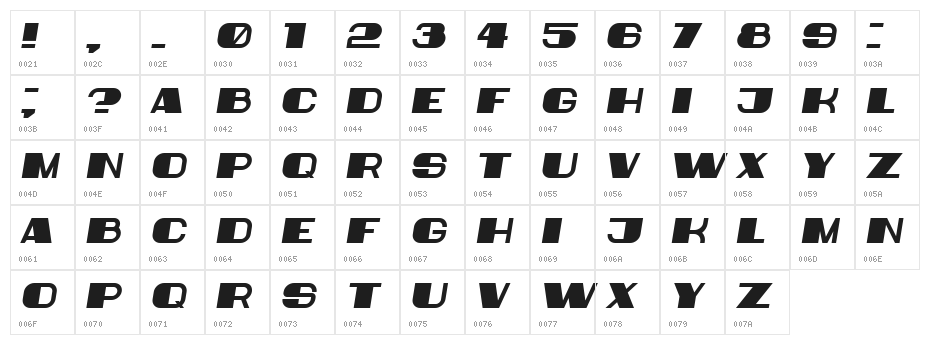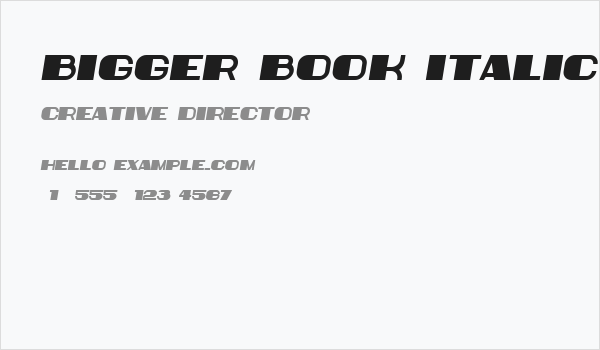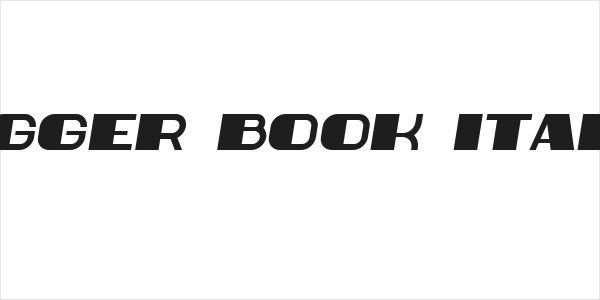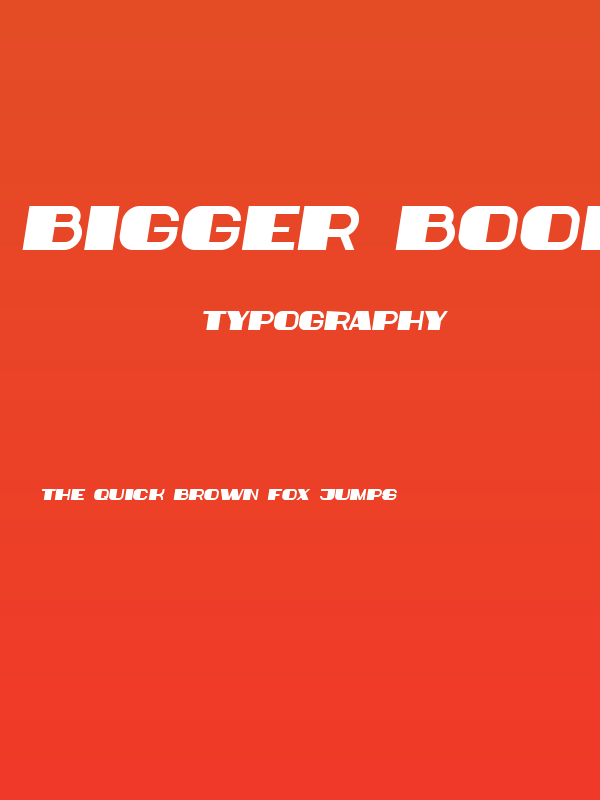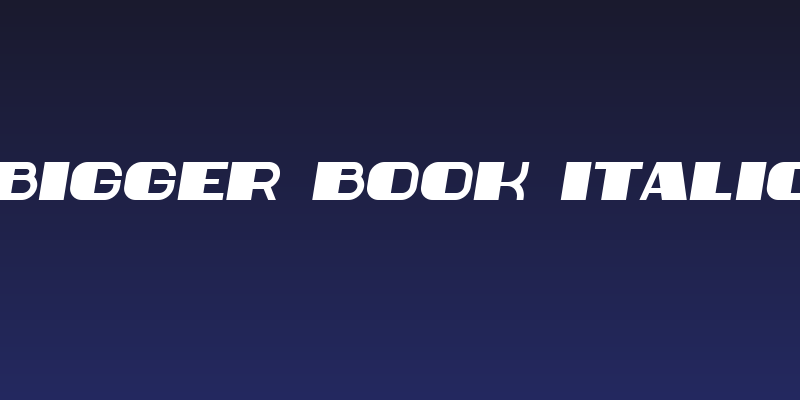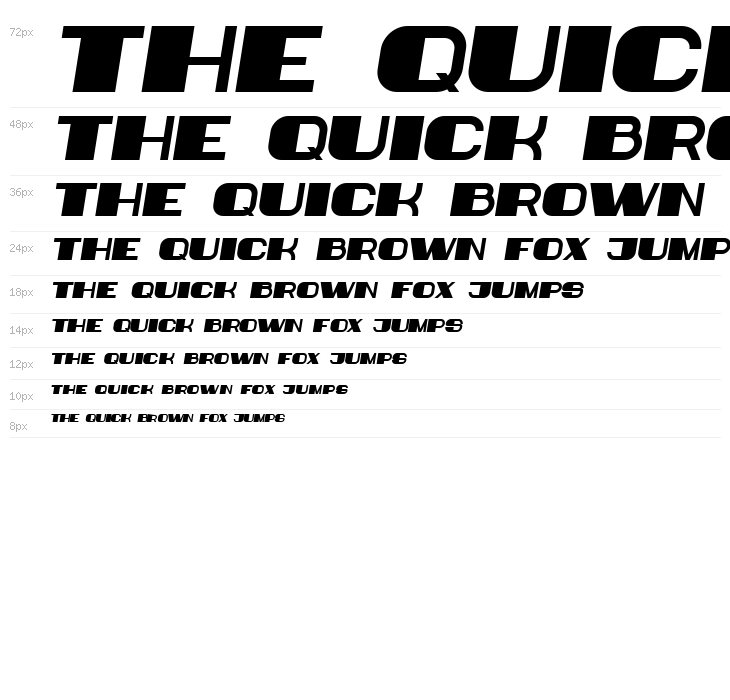
Bigger Book Italic Font
Bigger Book Italic Description
This font exhibits a bold and dynamic style with a strong italic slant, giving it a sense of motion and energy. The characters are wide and robust, featuring thick strokes that convey strength and impact. The uppercase letters are particularly striking, with angular cuts and sharp edges that enhance the font's assertive appearance. The numerals and special characters maintain the same boldness and slant, ensuring consistency throughout. This font's design is modern and eye-catching, making it suitable for projects that require a strong visual presence.
| Proposed Projects | Ideal for sports branding, dynamic posters, bold headlines, and modern advertising campaigns. |